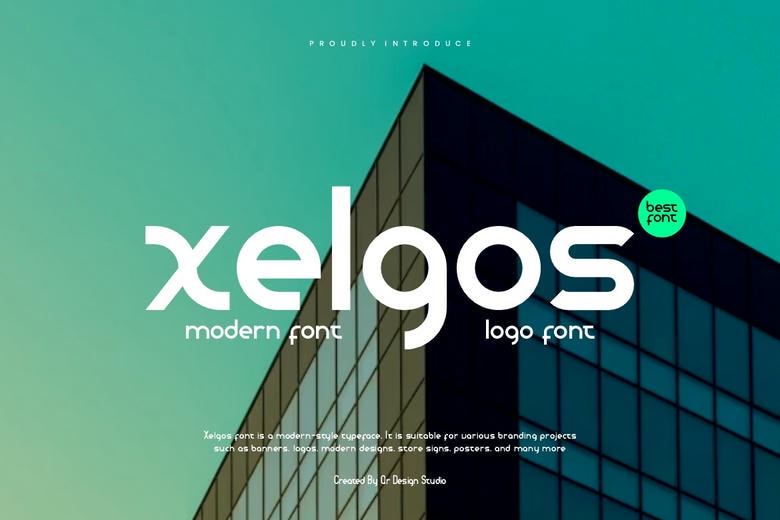
Xelgos Font
Xelgos Font is a graphic and natural display typeface. It is ideal to many branding works like logos, sports design and many others. The font has a magnificent appearance in a vast variety of settings.